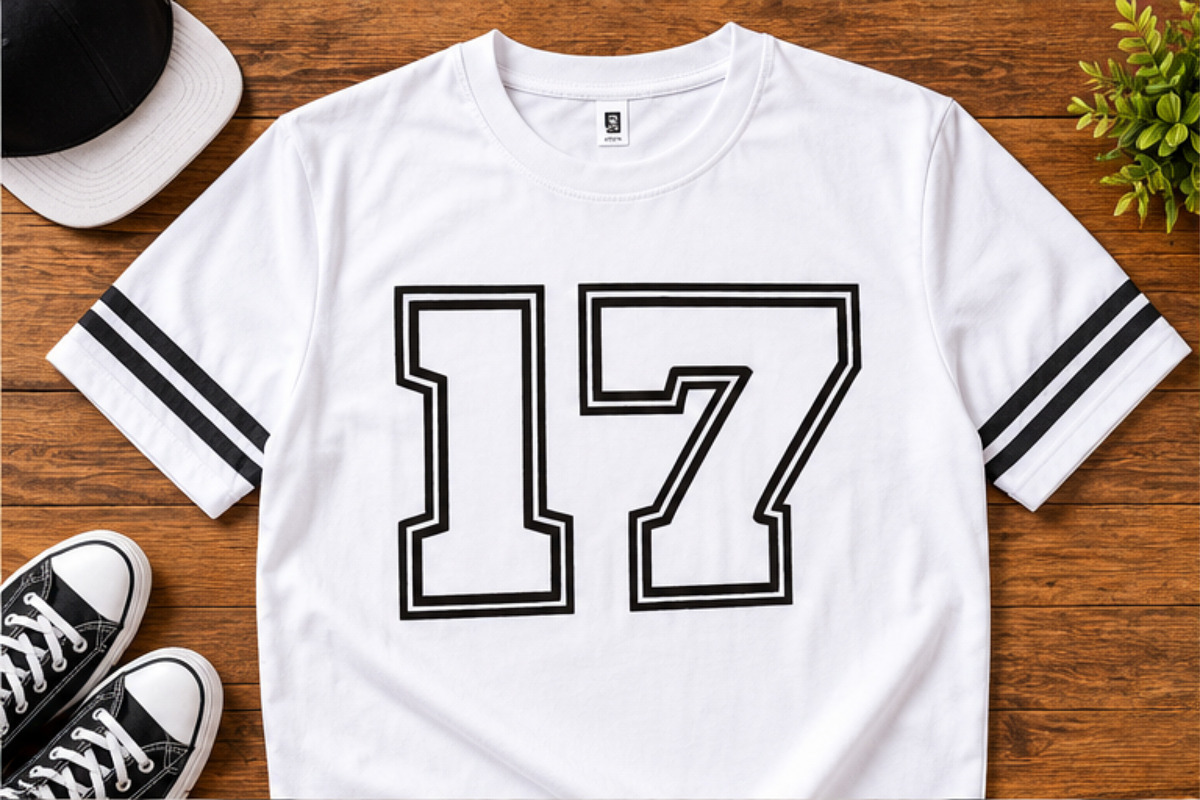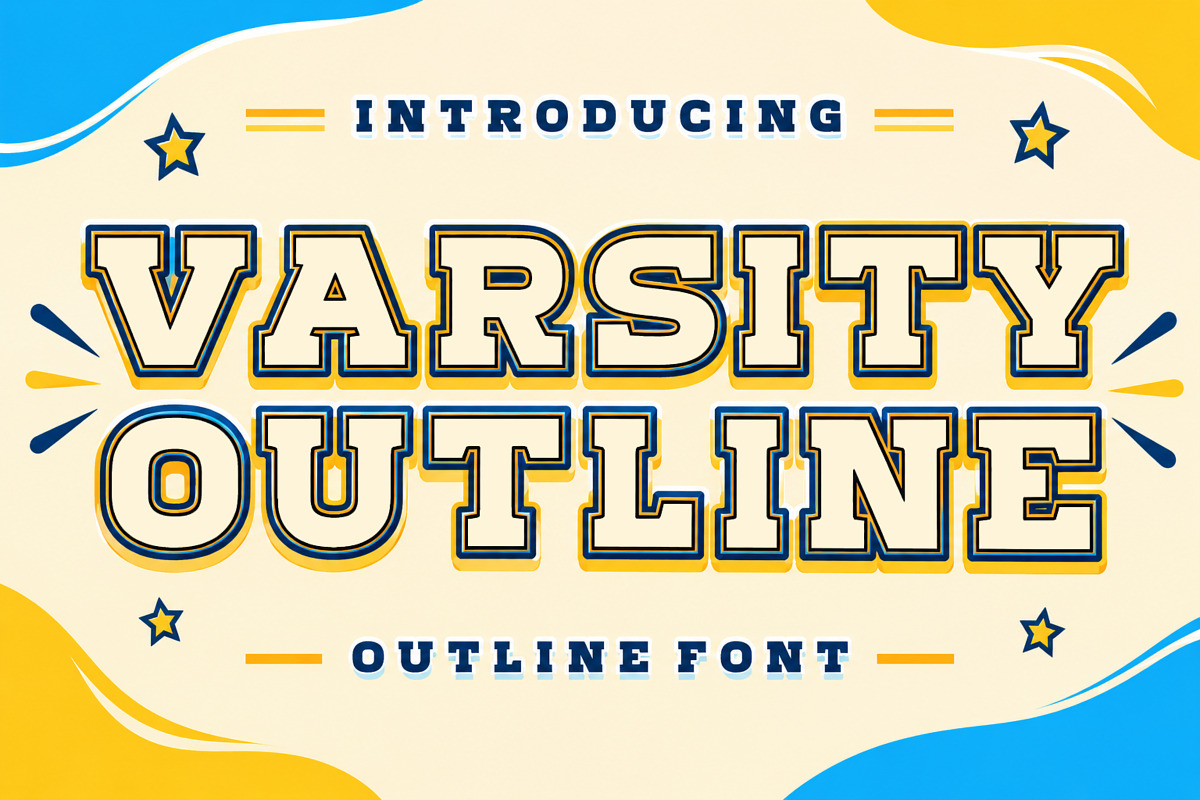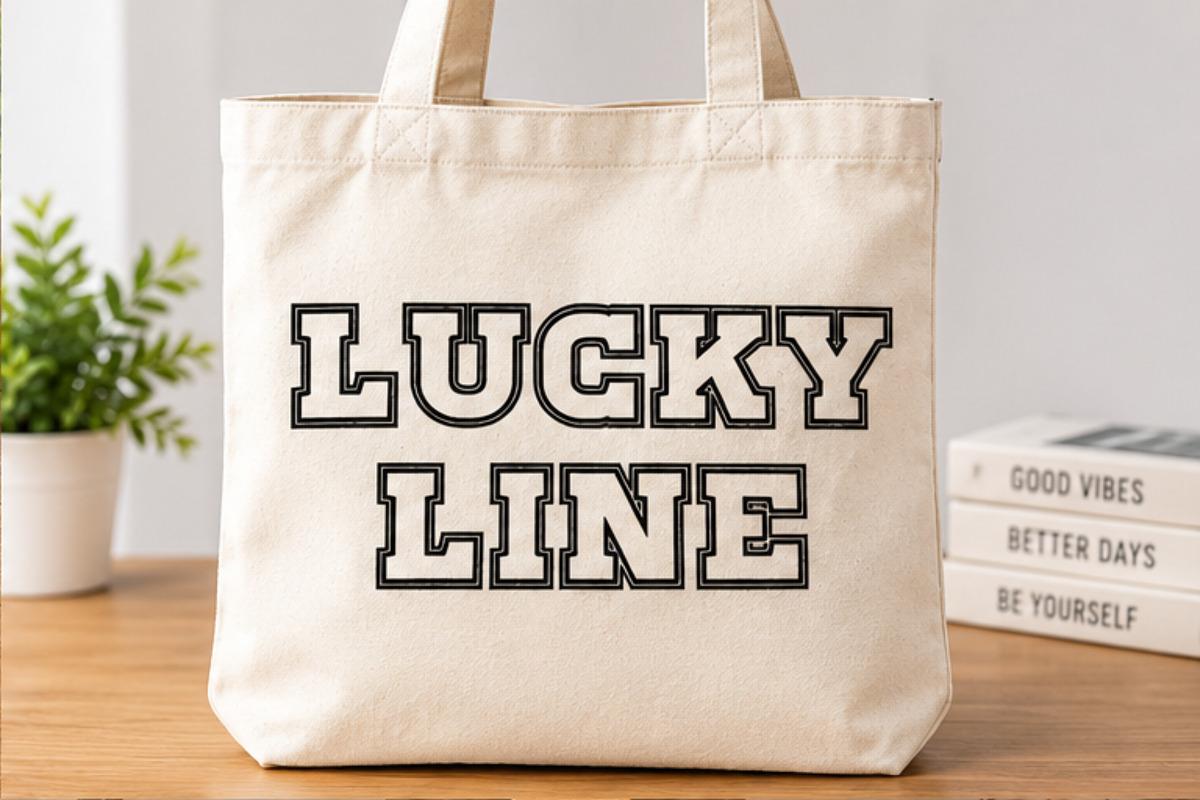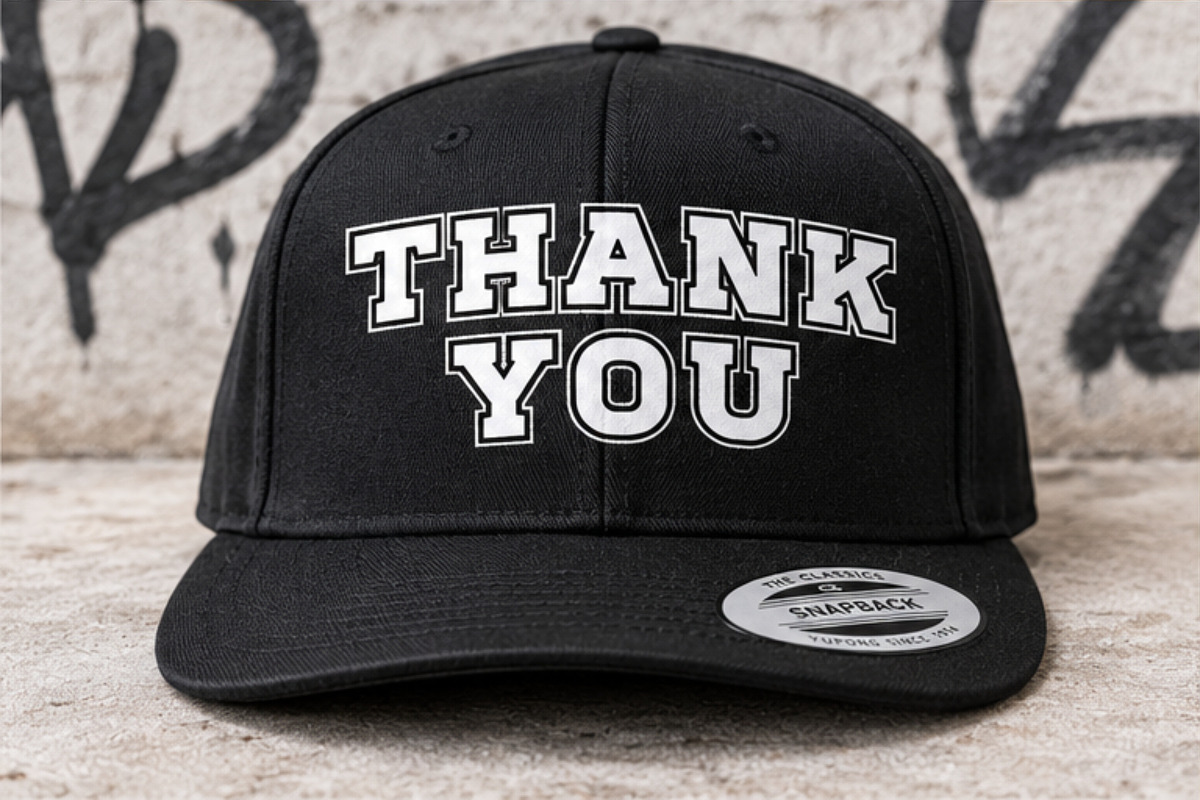
Varsity Outline – Bold College
Make your designs stand out with Varsity Outline, a bold display font inspired by classic college and athletic typography. Its strong block letterforms and distinctive outline style give your projects an authentic varsity and sports-inspired look.
Perfect for T-shirts, jerseys, hoodies, caps, sports logos, team branding, posters, stickers, badges, school designs, merchandise, and social media graphics. Varsity Outline combines a timeless collegiate aesthetic with a clean and versatile appearance.
Bold varsity-inspired lettering
Classic outline effect
Collegiate & athletic style
Strong, eye-catching display characters
Great for apparel and merchandise
Suitable for logos and branding
Perfect for sports and school-themed designs
Works well for print and digital projects